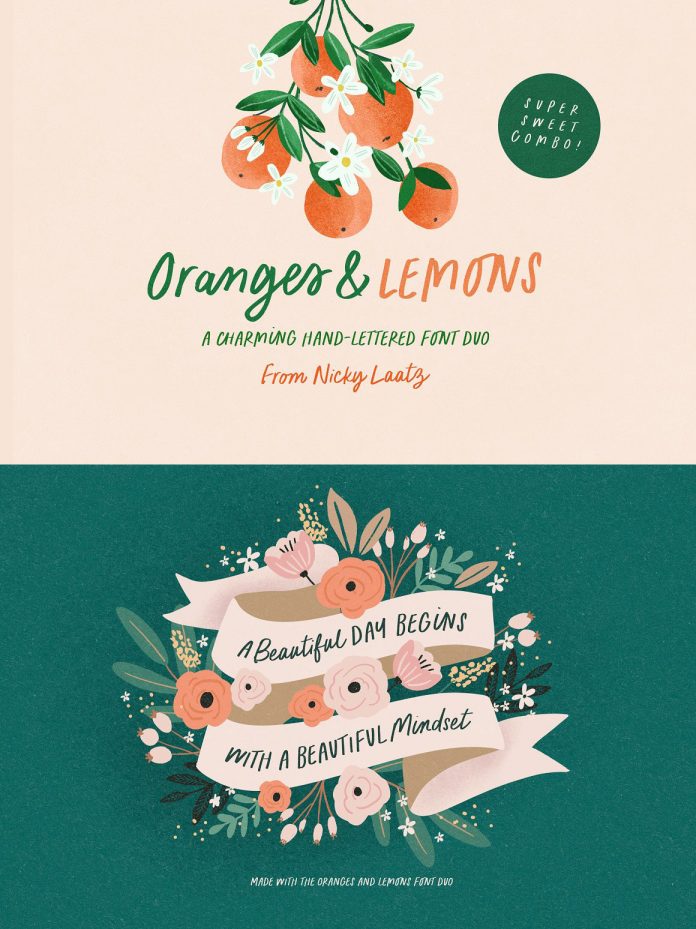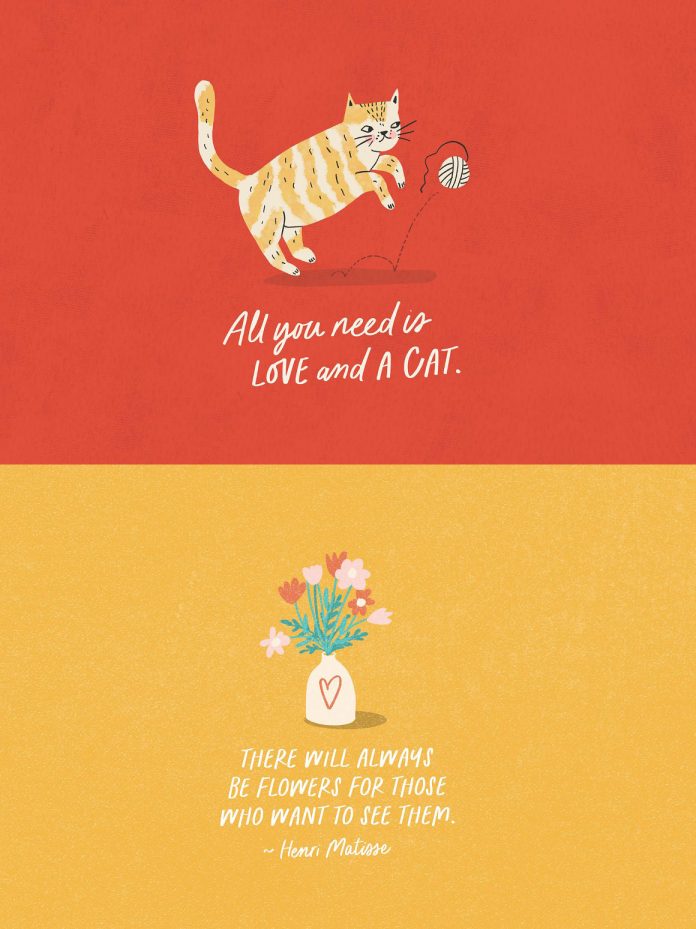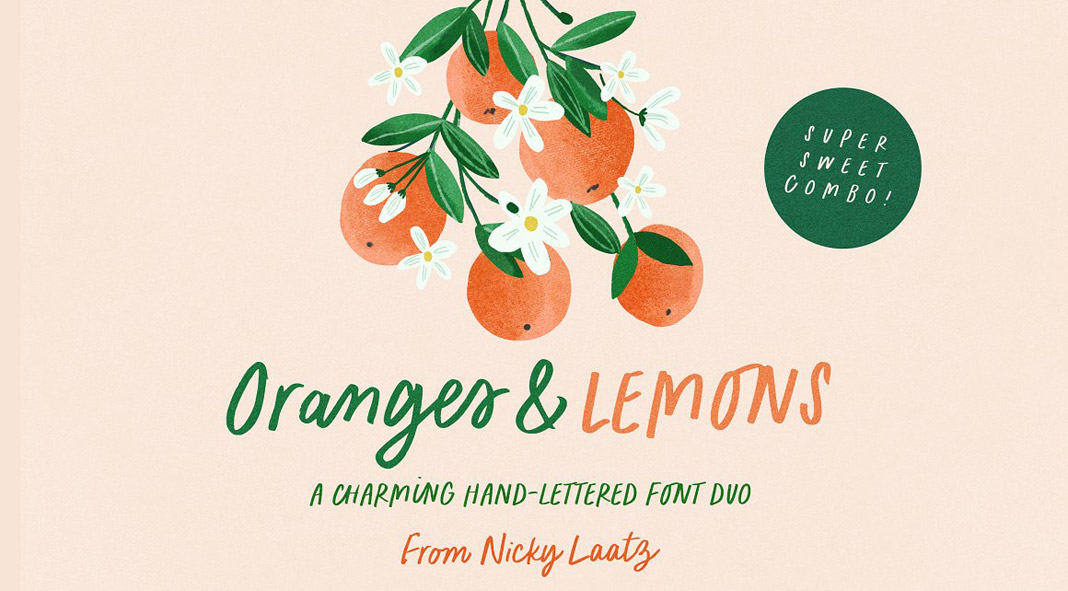
Oranges & Lemons is a charming hand-lettered font duo designed by Nicky Laatz.
The Oranges & Lemons font duo is a great choice for lovely greeting card designs as well as a good companion to illustrations. You can also use it for quotes, branding, book covers, books, packaging, and everything that asks for a nice handwritten style. Designed by Nicky Laatz in 2020, the font duo consists of a casual handwriting marker font with all-caps letters and a matching script typeface. Both fonts are equipped with nice ligatures. The Oranges & Lemons font duo supports multiple languages including Danish, English, French German, German (Switzerland), Norwegian Bokmål, Norwegian Nynorsk, Portuguese, Spanish, Swedish, and Swiss German. To learn more, just click on the following link or have a look at the images below.